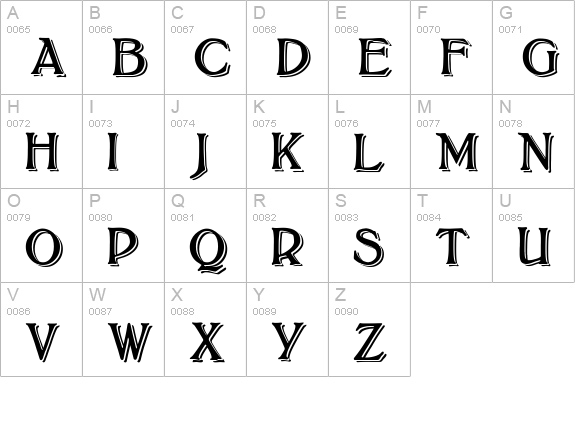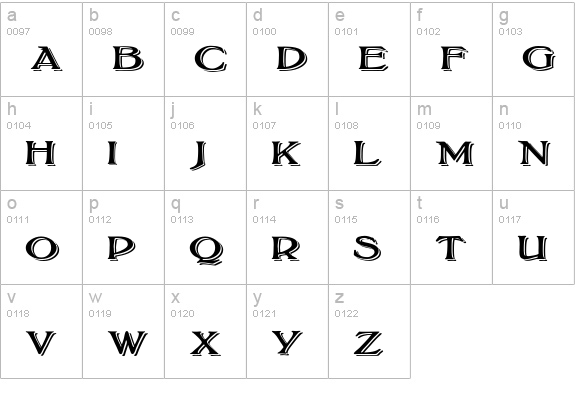
BoltonTitlingShadowed Font Details
BoltonTitlingShadowed font is a stunning display typeface that exudes elegance and sophistication. Its bold letterforms are enhanced by a subtle shadow effect, adding depth and dimension to any design project. This font is perfect for creating eye-catching headlines, signage, and branding materials that demand attention. The best part? BoltonTitlingShadowed font is available for free download at FontsMarket.com. Whether you're a seasoned designer looking to add a new tool to your collection or a beginner exploring typography for the first time, this font is a must-have. Don't miss out on the opportunity to elevate your designs with the timeless beauty of BoltonTitlingShadowed font. Download it today and let your creativity soar!